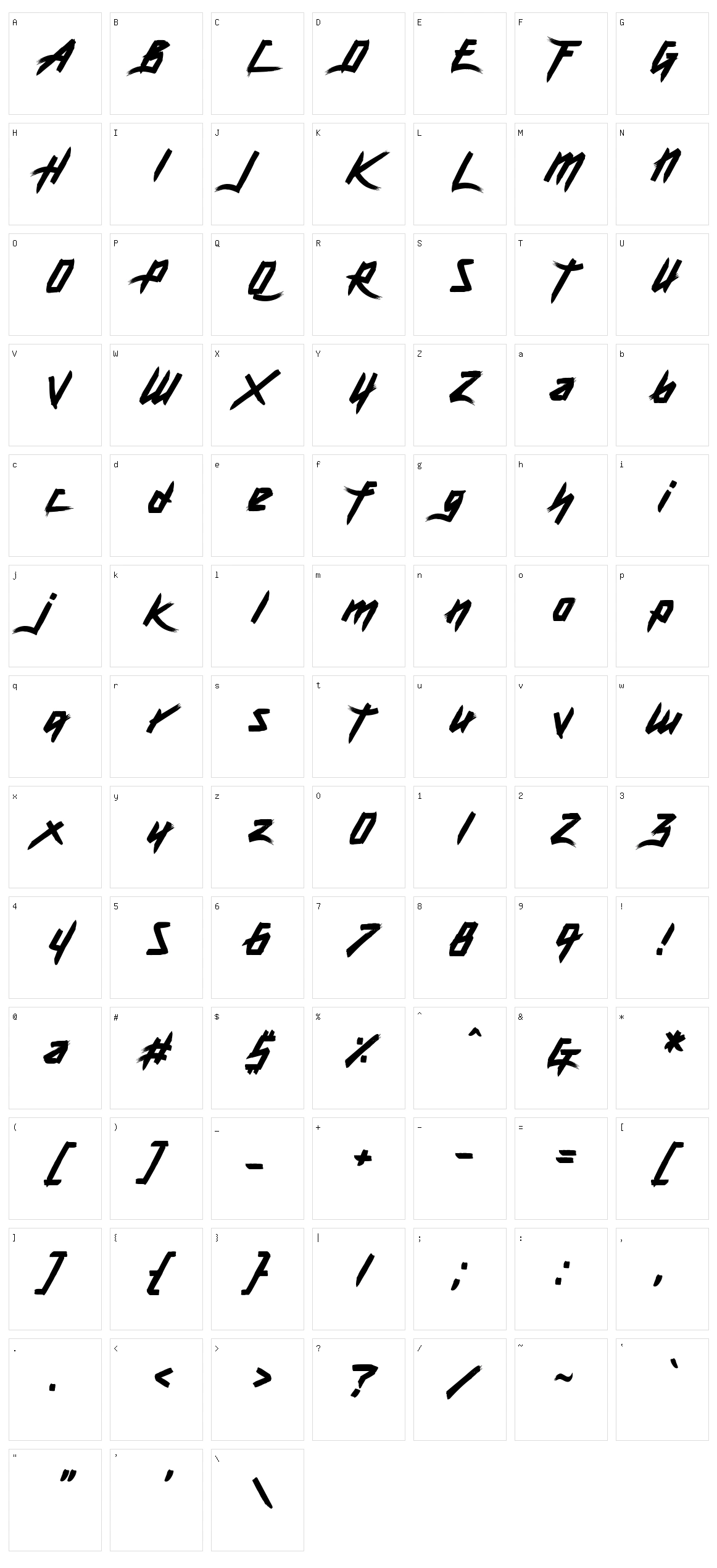
The free font Death Knell is carefully designed by Chequered Ink, showcasing a thoughtful balance of creativity and usability and falls under the Script font style. When you download the ZIP file, it contains only 33.19 KB of font files, making it lightweight and quick to download. Please review the license details below to understand permitted usage and distribution rights. If license information is not available, we recommend using this font for personal projects only or contacting the author directly for commercial usage permissions.